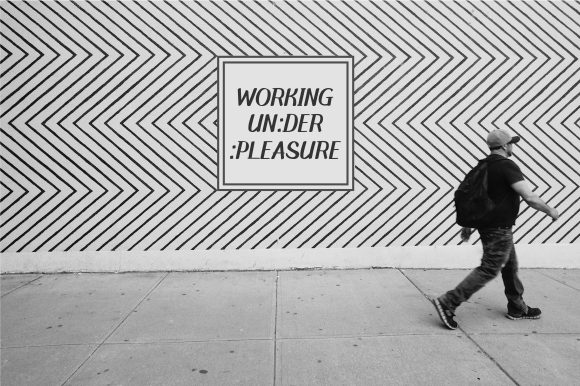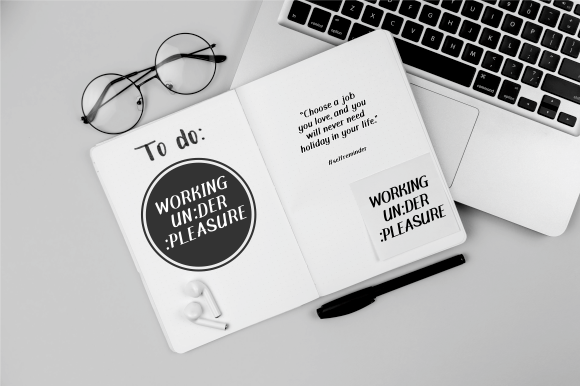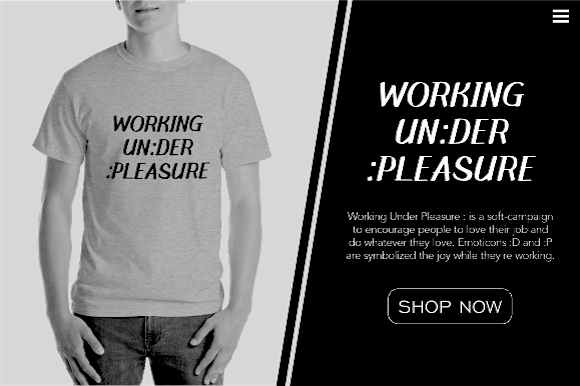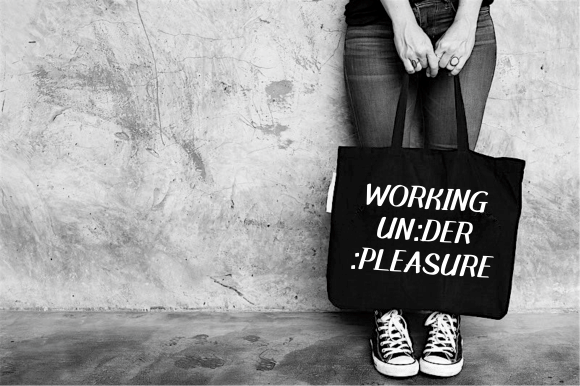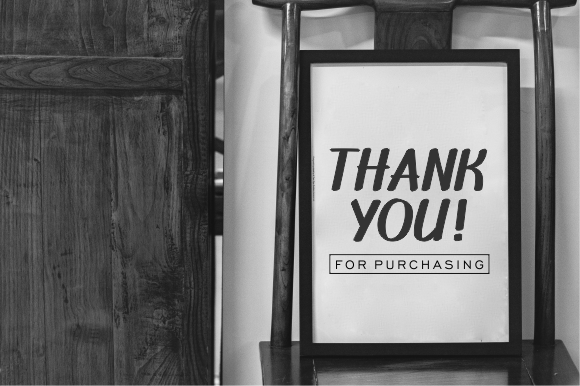
The Ultimate Guide to Ensiklopedia Font: A Friendly Display Font for Creative Projects
I’ll never forget the time I was working on a project for a client who wanted a font that was both playful and professional. I spent hours scouring the internet for the perfect font, but nothing seemed quite right. That was until I stumbled upon Ensiklopedia Font. Its casual charm and versatility immediately caught my eye, and I knew I had found the perfect fit. In this article, I’ll share my experience with Ensiklopedia Font, its features, and how to use it to elevate your creative projects.
An Honest Review of Ensiklopedia Font
So, what makes Ensiklopedia Font so special? Here are some things I love about this amazing font:
- ✨ Readability: Ensiklopedia Font is incredibly readable, even on busy backgrounds or at small sizes.
- ✅ Versatility: This font is suitable for a wide range of projects, from headings and titles to body text.
- 💃 Personality: Ensiklopedia Font has a unique, down-to-earth charm that adds a touch of warmth to any design.
While Ensiklopedia Font is an excellent choice, it’s not perfect. Here are a few small quirks to keep in mind:
- 🤔 Limited font weights: Ensiklopedia Font is available in a limited number of font weights, which may not be suitable for all projects.
- ⚠️ Glyph limitations: Some users have reported that the font may not have as many glyphs as they would like.
Exploring OpenType Features, Glyphs, and Stylistic Alternates
One of the standout features of Ensiklopedia Font is its support for OpenType features, glyphs, and stylistic alternates. These features allow you to add depth and interest to your designs, taking them to the next level.
| Feature | Description |
| OpenType Features | Allows for advanced typographic control, including ligatures and stylistic alternates. |
| Glyphs | Provides access to additional characters and symbols, expanding the font’s versatility. |
| Stylistic Alternates | Offers alternative font styles, allowing for creative experimentation and customization. |
The Backstory of Ensiklopedia Font
Ensiklopedia Font was designed with the goal of creating a friendly, approachable display font that could be used in a wide range of creative projects. The design team drew inspiration from classic fonts, combining traditional elements with modern twists to create a unique and versatile font.
| Font Name | Ensiklopedia Font |
| Author | Konsepta Studio |
- Q: What is Ensiklopedia Font?
- A: Ensiklopedia Font is a friendly display font designed for use in creative projects.
- Q: What makes Ensiklopedia Font versatile?
- A: Ensiklopedia Font is versatile due to its readability, personality, and support for OpenType features, glyphs, and stylistic alternates.
- Q: Is Ensiklopedia Font easy to read?
- A: Yes, Ensiklopedia Font is designed to be highly readable, even at small sizes or on busy backgrounds.